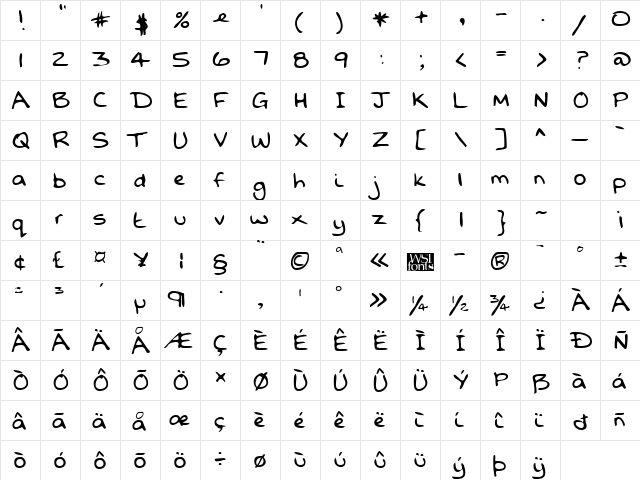
DavesHand Regular
Design Context for DavesHand Typeface
DavesHand flows with the natural rhythm of handwritten lettering, making it ideal for designs that call for warmth and personal expression.
Font Pairing: Combine DavesHand with a simple geometric sans for maximum contrast — the tension between flowing curves and clean structure is a classic typographic pairing.
Pro Tip: Pair DavesHand with a clean sans-serif for supporting text. The contrast between fluid script and geometric structure creates an elegant typographic hierarchy.